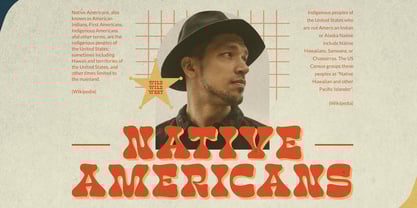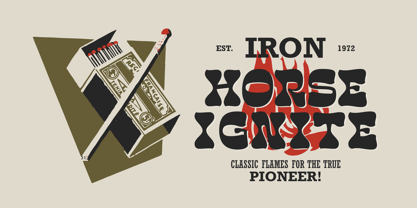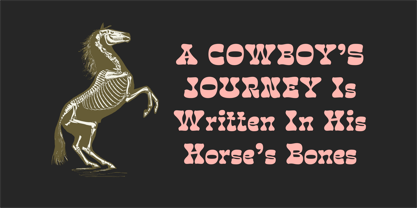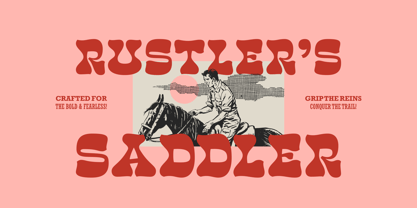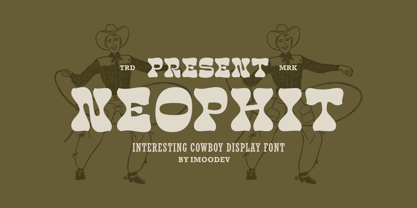
Neophit
by Imoodev
The Neophit Font Family was designed by Aulia Savira Putri and published by Imoodev. Neophit contains 1 styles. More about this family
Neophit is a cowboy display font it carries that wild west, meets combining chunky, uneven serifs with a bloated, almost psychedelic form that feels like a cowboy took a detour.
This font perfect for posters, headlines, country music album art, BBQ restaurant menus, western-themed branding, events, cowboy or rodeo posters. The font capturing the wild spirit of the old West with a modern twist.